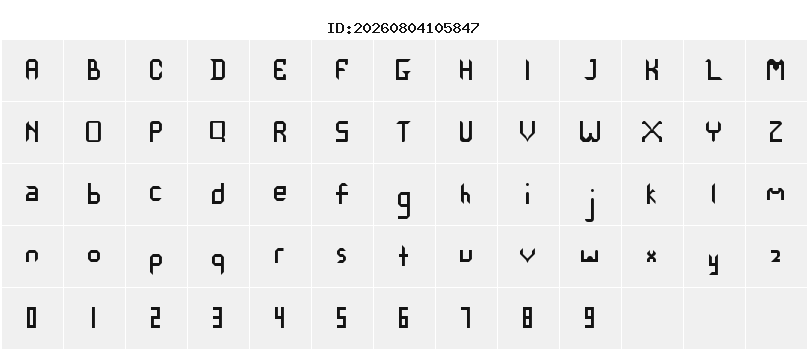
• Font Name: Normald v2
• Full Font Name: Normald v2 Regular
• Copyright: Copyright SuperSurvivalFan2015 2016 “Normald v2” is based on “Normald” by “SuperSurvivalFan2015” (http://fontstruct.com/fontstructors/show/1348182/supersurvivalfan2015)
• Designer: SuperSurvivalFan2015
• Description: “Normald v2” was built with FontStruct Designer description:
Remake of my very first font, I made some changes to the glyphs: "v","b" and "x".
“Normald v2” is based on “Normald” by “SuperSurvivalFan2015” (http://fontstruct.com/fontstructors/show/1348182/supersurvivalfan2015)
About Normald v2.ttf
Normald v2.ttf is a modern, elegant sans-serif font designed for ultimate readability and visual harmony. Perfect for branding, headlines, web design, and print materials.